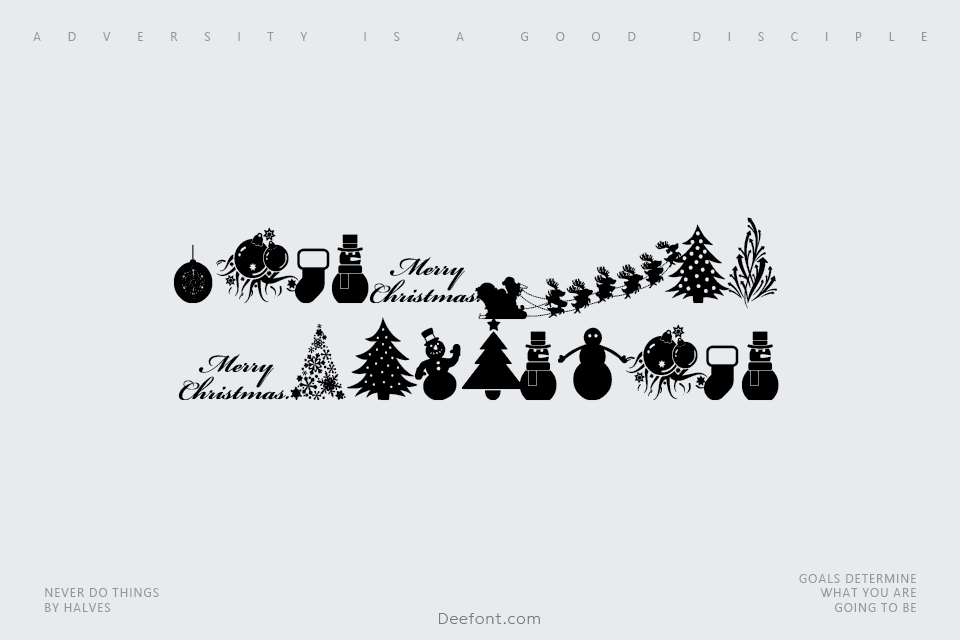
Xmas TFB Christmas Font
Xmas TFB Christmas is a festive and playful holiday display font designed with whimsical character perfect for seasonal greetings, Christmas cards, decorations, and festive branding. Featuring 85 distinct letters with cheerful personality, this typeface brings the joyous spirit of the holiday season to any creative project. Available in TTF format with comprehensive character support, making it ideal for designers seeking to add enchanting holiday charm to their work.